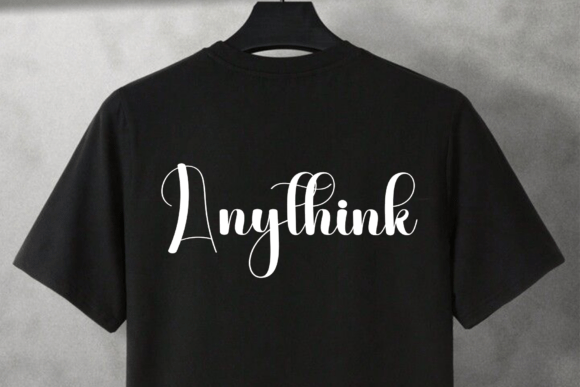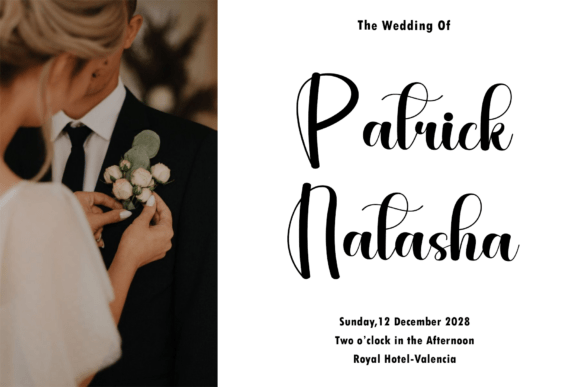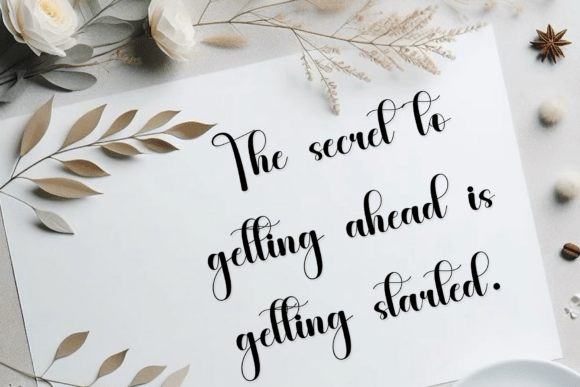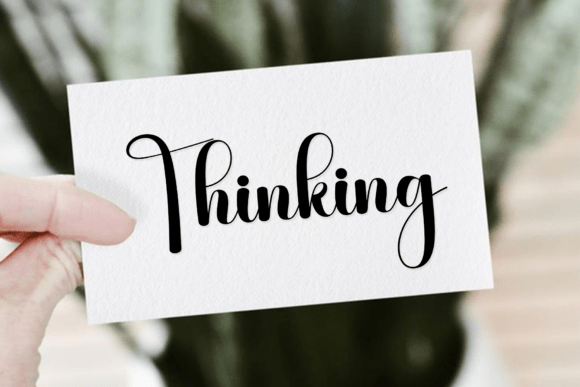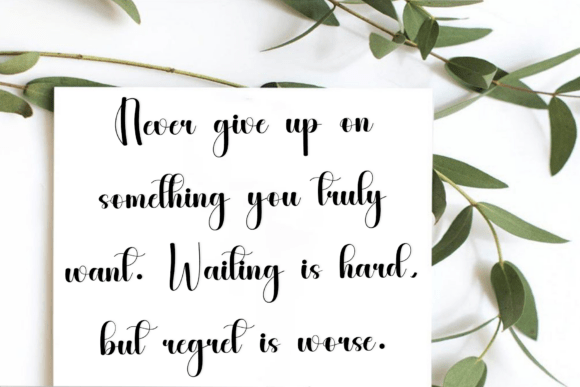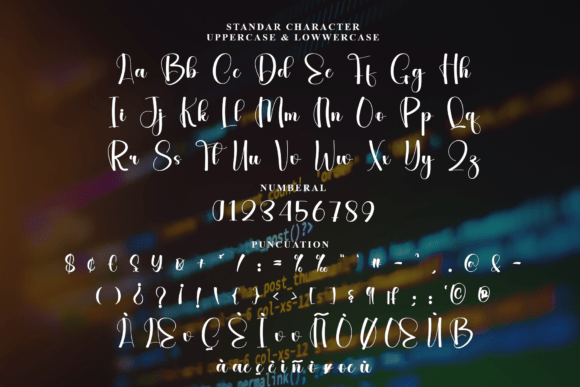
Introducing Digital: The Elegant Handwritten Script Font for Modern Design
In the world of typography, a well-crafted font can elevate a design from ordinary to extraordinary. For those seeking a modern, sophisticated typeface that exudes elegance and refinement, look no further than Digital, a beautiful handwritten script font. With its fluid strokes, sweeping loops, and fine terminals, Digital is the perfect choice for designers and crafters looking to add a touch of luxury to their projects.
The Characteristics of Digital
Digital is a masterclass in elegant typography. Its high-contrast strokes give the letterforms a sense of rhythm and flow, while the sweeping loops and fine, tapering terminals add a touch of sophistication. The expansive horizontal presence of the font creates a sense of grandeur, while the delicate connections between characters provide a high-end, personalized aesthetic. Whether used for luxury wedding stationery, intimate event branding, high-end editorial signatures, or sophisticated lifestyle photography overlays, Digital is sure to impress.
Design Features and Benefits
- Fluid handwritten script: Digital’s elegant, connected script style creates a sense of movement and fluidity, perfect for designs that require a touch of sophistication.
- High-contrast strokes: The font’s high-contrast strokes add depth and dimension to the letterforms, creating a sense of visual interest.
- Sweeping loops and fine terminals: The sweeping loops and fine terminals give the font a sense of elegance and refinement, perfect for luxury designs.
- Expansive horizontal presence: Digital’s expansive horizontal presence creates a sense of grandeur, making it perfect for designs that require a statement piece.
- Delicate connections: The delicate connections between characters add a touch of personality to the font, creating a high-end, bespoke aesthetic.
Use Cases for Digital
Digital is a versatile font that can be used in a variety of design applications. Some of the most popular use cases include:
- Luxury wedding stationery: Digital’s elegant, sophisticated style makes it perfect for wedding invitations, save-the-dates, and other wedding stationery.
- Intimate event branding: The font’s high-end aesthetic makes it ideal for branding and marketing materials for intimate events, such as baby showers, bridal showers, and anniversaries.
- High-end editorial signatures: Digital’s refined style makes it perfect for use as a signature font for high-end editorial content, such as fashion and lifestyle publications.
- Sophisticated lifestyle photography overlays: The font’s elegant style makes it perfect for use as an overlay for lifestyle photography, adding a touch of sophistication and refinement to images.
Why Choose Digital?
With so many fonts to choose from, why choose Digital? Here are just a few reasons why designers and crafters are falling in love with this beautiful script font:
- Elegant and sophisticated: Digital’s refined style makes it perfect for designs that require a touch of luxury and sophistication.
- Versatile: The font’s versatility makes it suitable for a wide range of design applications, from wedding stationery to high-end editorial content.
- High-quality design: Digital is designed to the highest standards, with careful attention to detail and a focus on creating a beautiful, elegant typeface.
In conclusion, Digital is a stunning handwritten script font that is sure to elevate any design. With its elegant, sophisticated style, high-contrast strokes, and sweeping loops, Digital is the perfect choice for designers and crafters looking to add a touch of luxury to their projects. Whether used for luxury wedding stationery, intimate event branding, high-end editorial signatures, or sophisticated lifestyle photography overlays, Digital is sure to impress.